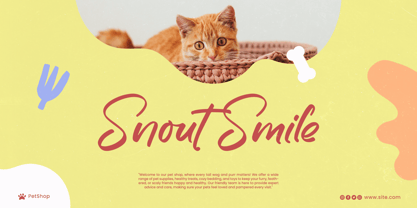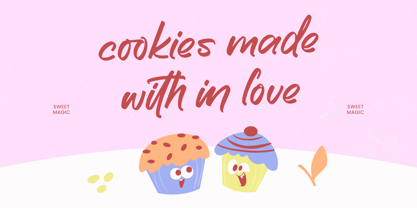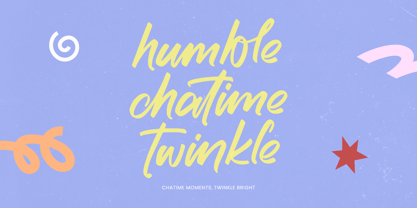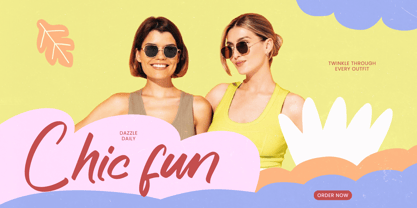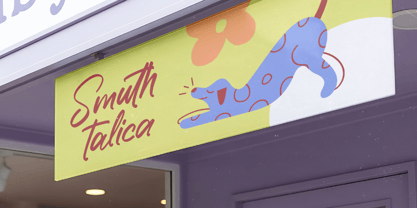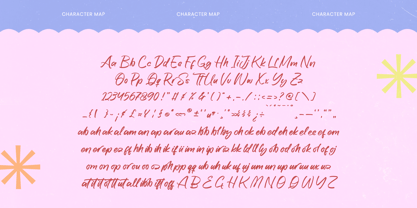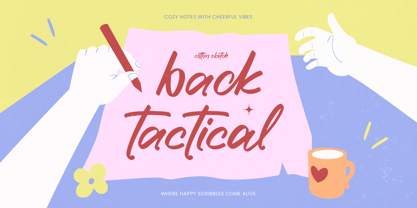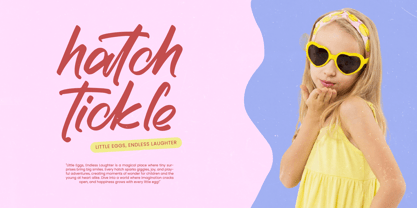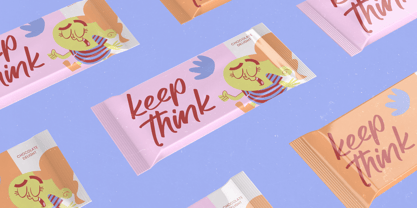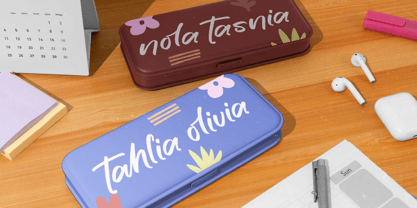
Back Tactical
The Back Tactical Font Family was designed by Heru Utama Putra and published by Letterena Studios. Back Tactical contains 2 styles and family package options. More about this family
Back Tactical – Sticky Notes
Elevate your creative projects with a touch of authentic human expression. Back Tactical – Sticky Notes is a vibrant, handwritten script that captures the raw energy of spontaneous notes and bold ideas. Its natural strokes and expressive ligatures provide an organic flow that mimics real penmanship, making it a standout choice for designers seeking a modern, artisanal aesthetic.
Expand your design horizons and reach a global audience effortlessly. With its extensive multilingual support, Back Tactical – Sticky Notes adapts seamlessly across global markets, making it incredibly versatile for international projects. This cross-cultural compatibility ensures that your message remains impactful and legible, regardless of the language, providing a cohesive brand identity for creators operating on a worldwide scale.